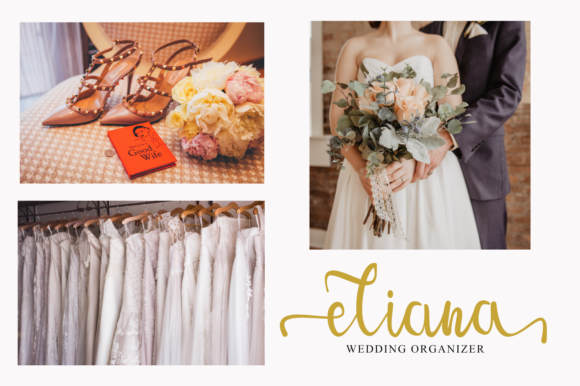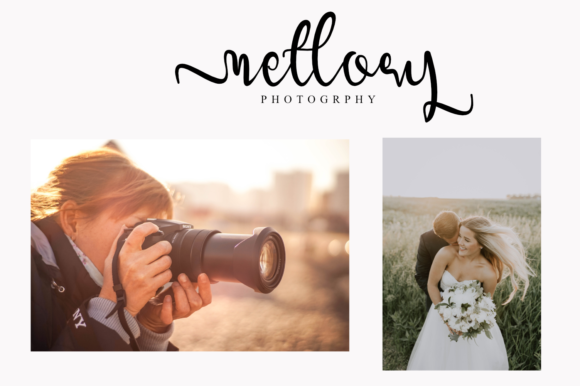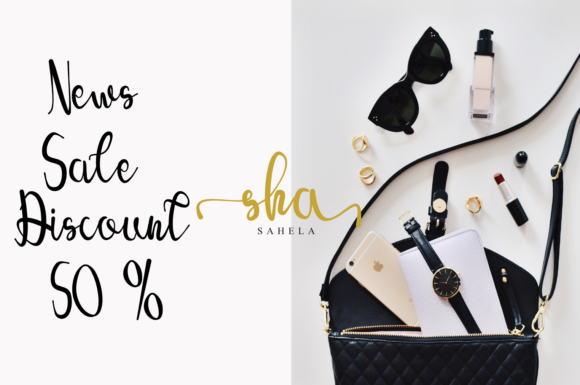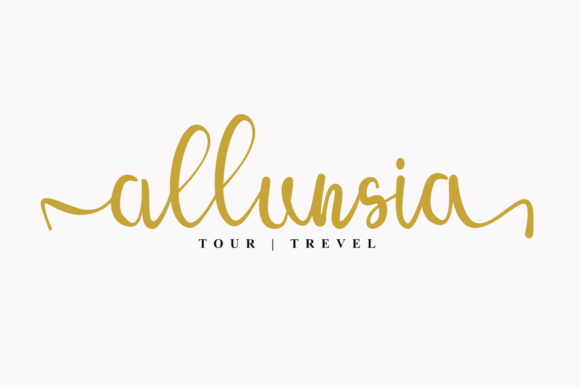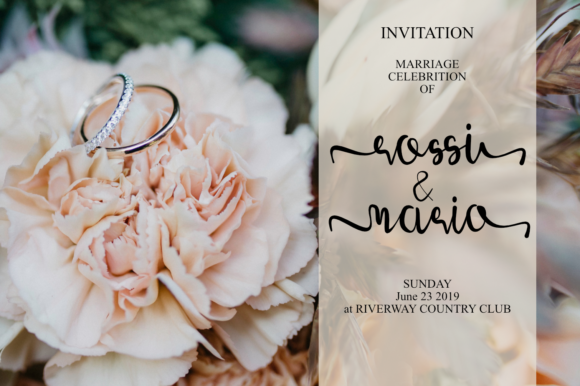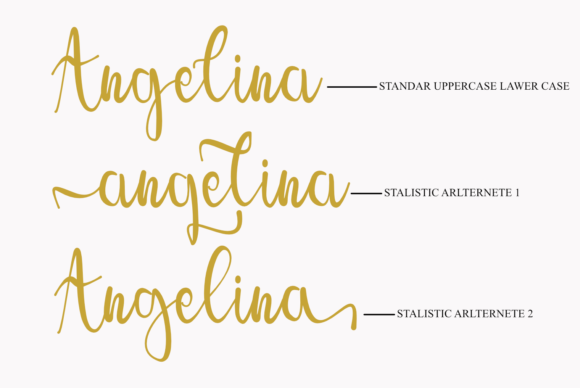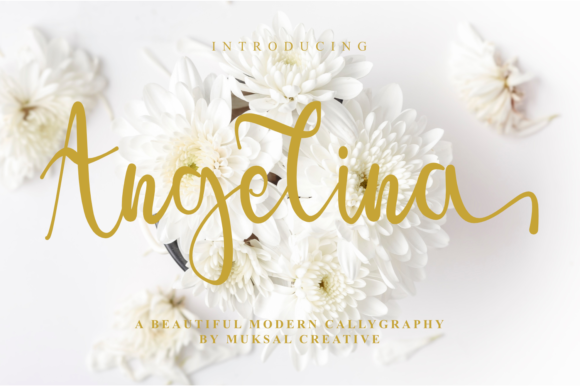
Introducing Angelina Font: The Bold and Fun Script Font You Need
Are you tired of using the same old fonts in your design projects? Look no further than Angelina Font, a bold and fun script font that’s sure to add a unique charm to any design. With its contemporary style and versatility, Angelina Font is the perfect choice for designers and crafters looking to make their projects stand out.
The Unique Charm of Angelina Font
Angelina Font is a one-of-a-kind script font that’s designed to make a statement. Its bold and fun style is perfect for adding a touch of personality to any design project. Whether you’re working on a logo, brochure, or social media graphic, Angelina Font is sure to turn heads. Its unique charm lies in its flowing lines and curves, which give it a dynamic and energetic feel.
Contemporary Style for Modern Designs
Angelina Font is a font that’s firmly rooted in contemporary style. Its clean lines, bold shapes, and flowing curves make it perfect for modern designs that require a touch of sophistication. Whether you’re designing for a fashion brand, a tech startup, or a lifestyle magazine, Angelina Font is sure to fit right in. Its versatility also makes it a great choice for a wide range of design projects, from branding and advertising to packaging and web design.
Why Choose Angelina Font?
So why choose Angelina Font over other script fonts on the market? Here are just a few reasons why designers and crafters are falling in love with this bold and fun font:
• Unique style: Angelina Font has a one-of-a-kind style that’s sure to make your designs stand out from the crowd.
• Versatility: This font is perfect for a wide range of design projects, from logos and brochures to social media graphics and packaging.
• Easy to read: Despite its bold and fun style, Angelina Font is easy to read, making it perfect for designs that require a clear and concise message.
• Customizable: With its wide range of characters and symbols, Angelina Font can be customized to fit your design needs.
How to Use Angelina Font in Your Designs
Using Angelina Font in your designs is easy. Here are a few tips to get you started:
• Pair it with a sans-serif font: For a modern and clean look, pair Angelina Font with a sans-serif font like Arial or Helvetica.
• Use it as a headline font: Angelina Font is perfect for headlines and titles, where its bold and fun style can really shine.
• Add some flair with swashes: Angelina Font comes with a range of swashes and flourishes that can add a touch of elegance to your designs.
Inspirational Ideas for Using Angelina Font
Still looking for inspiration on how to use Angelina Font in your designs? Here are a few ideas to get you started:
• Create a bold logo: Use Angelina Font to create a bold and eye-catching logo that showcases your brand’s personality.
• Design a stylish brochure: Angelina Font is perfect for brochures and flyers, where its clean lines and flowing curves can really make your content stand out.
• Make a statement on social media: Use Angelina Font to create eye-catching social media graphics that are sure to grab attention.
Font Name Angelina Font
Author Muksal Creative
Angelina Font is a bold and fun script font that’s sure to add a unique charm to any design project. With its contemporary style, versatility, and ease of use, it’s the perfect choice for designers and crafters looking to make their projects stand out. Whether you’re working on a logo, brochure, or social media graphic, Angelina Font is sure to inspire your creativity and take your designs to the next level.